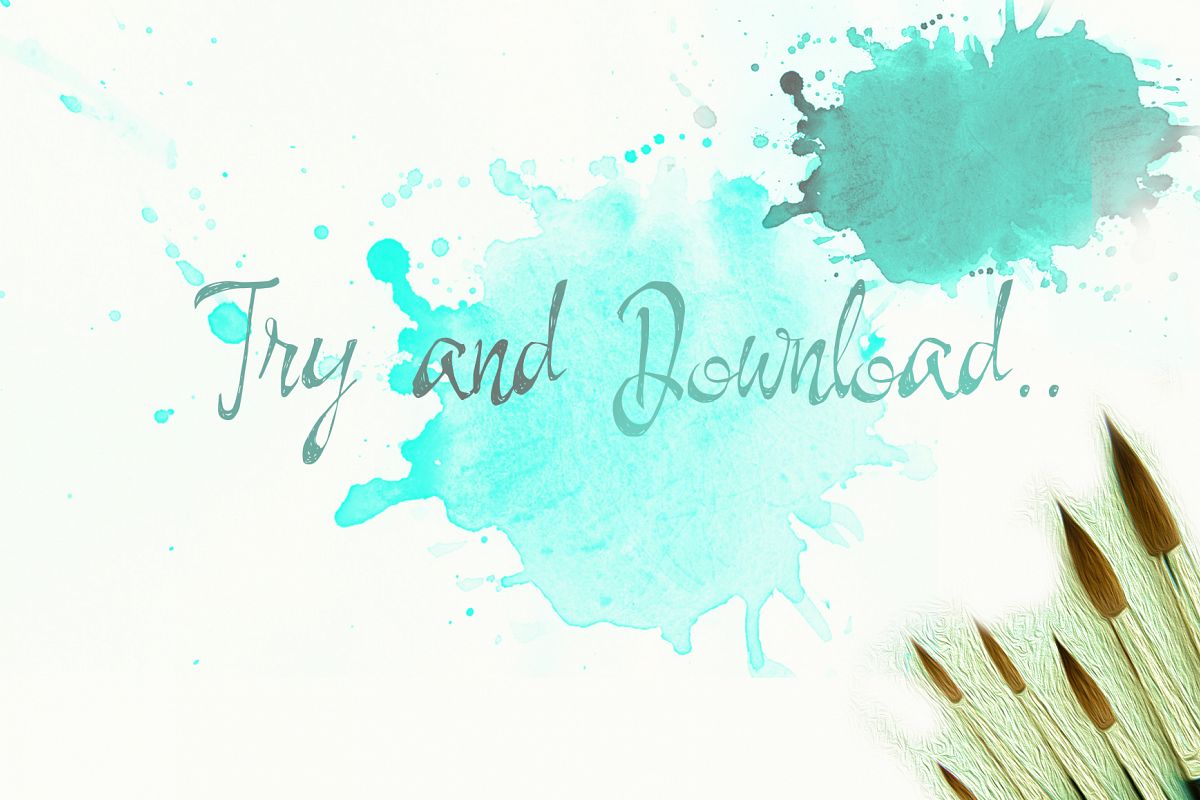
Dream Sketcher
DreamSketcher-Regular
-Introductory offer-Dream sketcher.ttf font is font with artistic style, and this was iclude with alternate type.Try and download now.